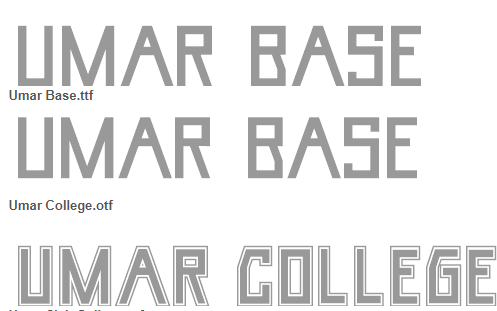
This Umar Font Family is undoubtedly acted, instantly part and avenue artwork culture is what made me make this font family out. And also as a tribute for the one of the finest person on Islam records: “Umar bin Khattab”
Umar Font Family